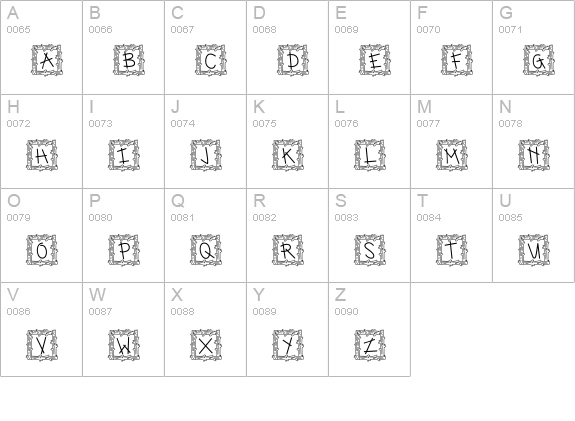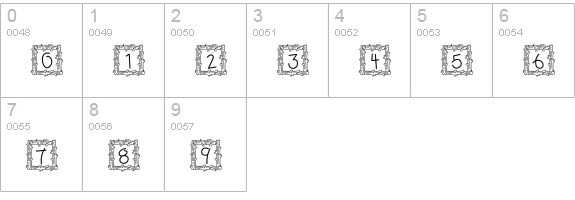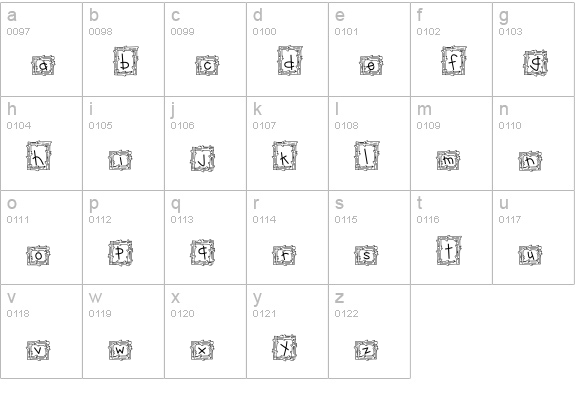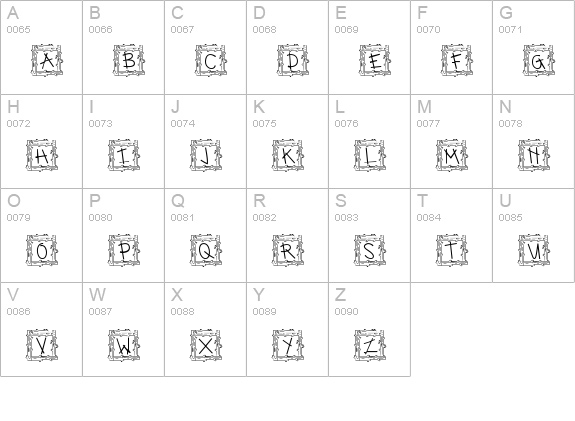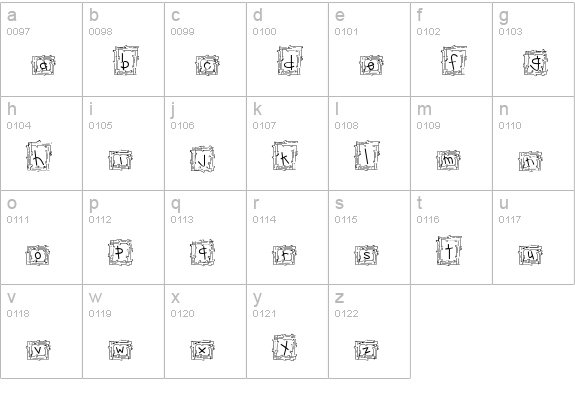
CK Take a Hike Font Details
Introducing CK Take a Hike font, a whimsical and adventurous typeface perfect for outdoor enthusiasts and nature lovers. This unique font captures the essence of exploring the great outdoors with its playful yet rugged design. CK Take a Hike font is versatile and can be used for a variety of creative projects such as branding, packaging, posters, and more. The best part? CK Take a Hike font is completely free to download at FontsMarket.com. Embrace your wanderlust and add a touch of adventure to your designs with CK Take a Hike font today!